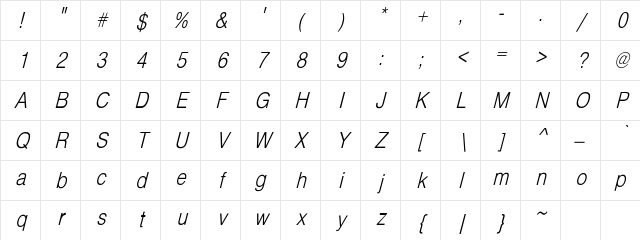
Bern Oblique Condensed 2 Regular
Design Context for Bern Oblique Condensed 2
Bern Oblique Condensed 2 is a composed and adaptable typeface that performs quietly and consistently across a wide range of design contexts. The slanted form adds forward momentum and visual energy. Its narrow stance lets it pack a punch even in space-constrained designs.